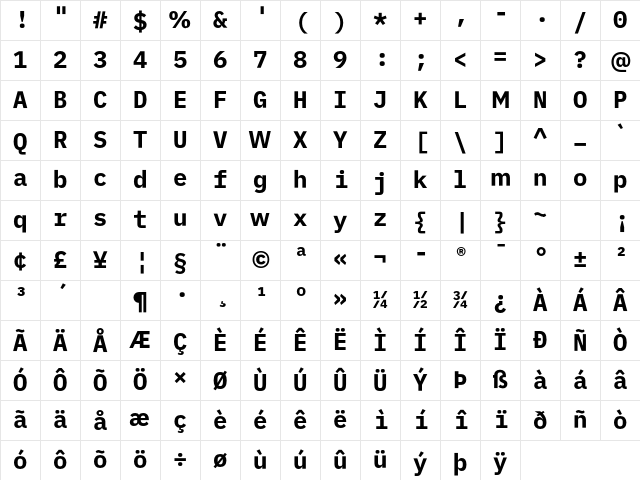
iMWritingDuospace Nerd Font Regular
Foundry: Bold Monday
Designer: Mike Abbink, Bold Monday, modified by Oliver Reichenstein
Design Context for iMWritingDuospace Nerd Font
iMWritingDuospace Nerd Font is a composed and adaptable typeface that performs quietly and consistently across a wide range of design contexts.